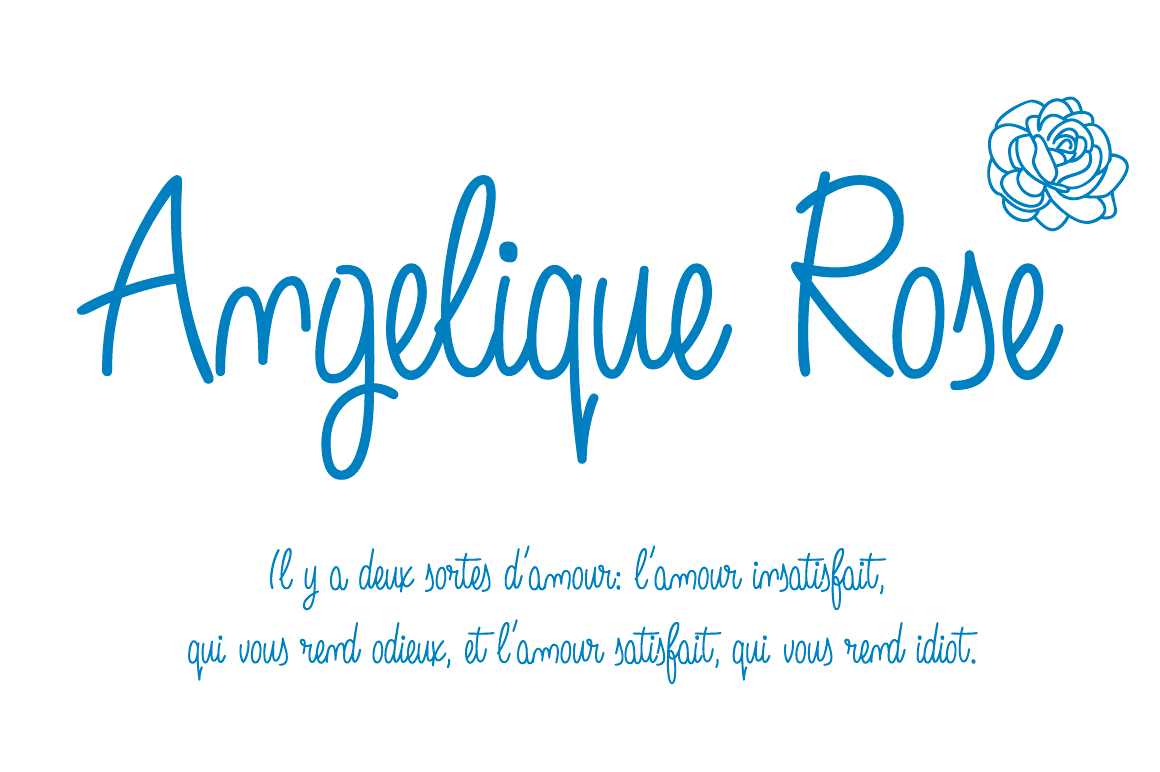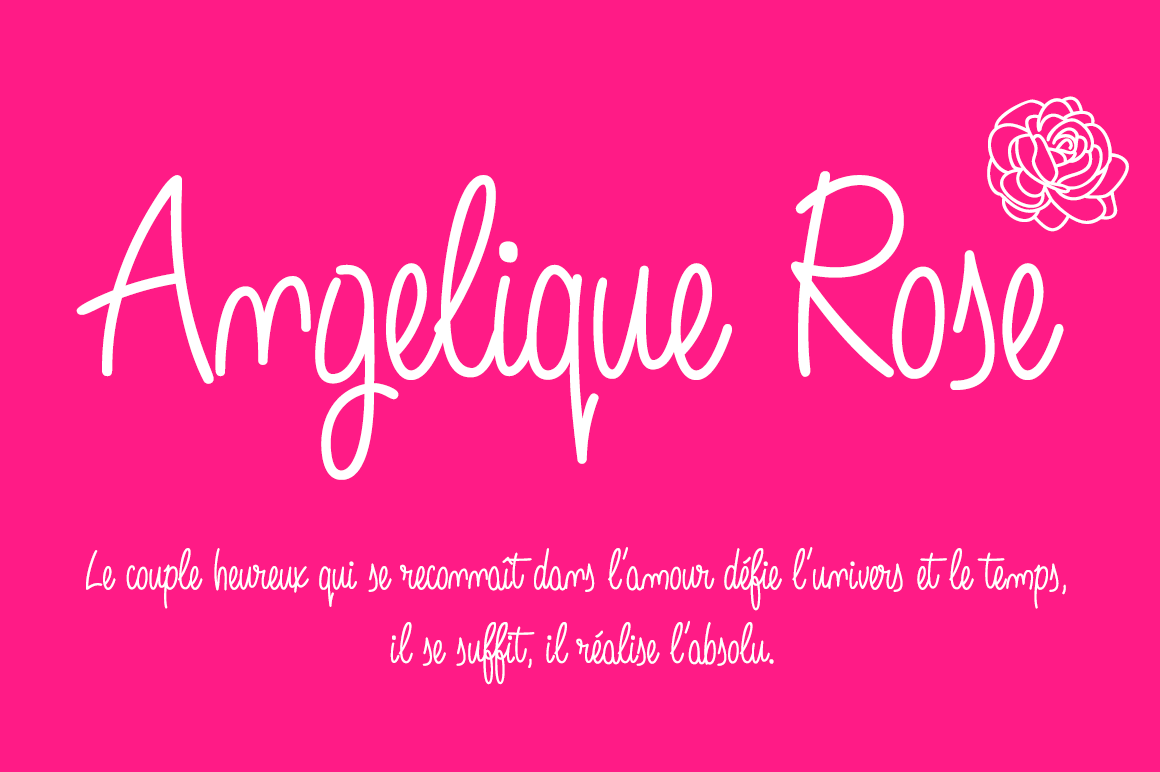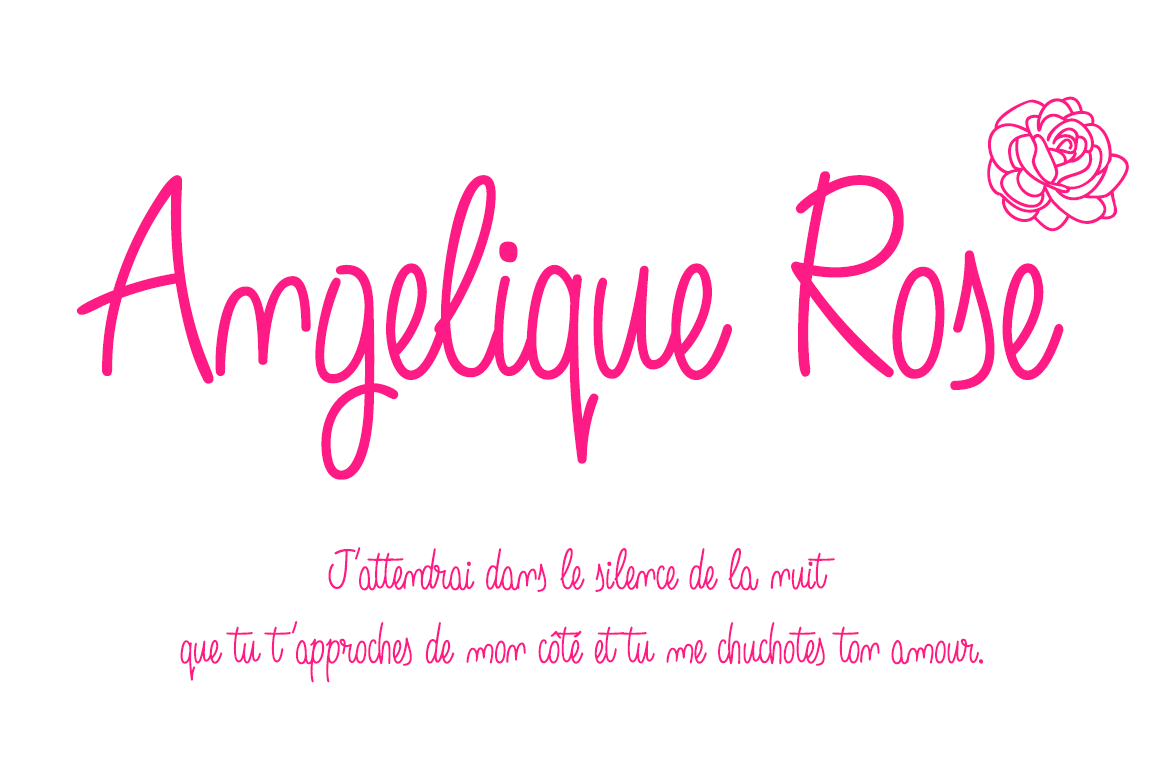
The Quest for the Perfect Handwritten Font: Discovering Angelique Rose
I still remember the design project that led me to discover the beautiful Angelique Rose font. I was working on a branding project for a crafty client who specialized in handmade jewelry. I wanted a font that would capture the essence of her handmade products and convey a sense of warmth and personality. After scouring through countless font libraries, I stumbled upon Angelique Rose, a handwritten font drawn with pen and paper. It was love at first sight! 💕
A Personal Review of Angelique Rose
As a designer, I’m always on the lookout for fonts that can add a personal touch to my projects. Here’s what I love about Angelique Rose:
- ✨ Unique and elegant handwritten style that’s perfect for branding, packaging, and marketing materials.
- ✅ Highly legible, even at small font sizes.
- 💫 Supports OpenType features, including glyphs and stylistic alternates, which add an extra layer of creativity to your designs.
While Angelique Rose is an amazing font, it’s not without its quirks. Here are a few things to keep in mind:
- 🤔 The font can be a bit heavy on the x-height, which may not be ideal for certain design applications.
- ⚠️ Some users may find the font a bit too ornate for very small font sizes or body text.
The Story Behind Angelique Rose
Angelique Rose was designed by a talented type designer who wanted to create a font that captured the essence of handwritten elegance. Inspired by classic calligraphy and modern handwriting, the designer poured their heart and soul into creating a font that’s both beautiful and functional.
| Font Name | Angelique Rose Font |
| Author | Fernando Haro |
| What is Angelique Rose? | Angelique Rose is a handwritten font drawn with pen and paper, perfect for branding, packaging, and marketing materials. |
| Is Angelique Rose suitable for body text? | While Angelique Rose is highly legible, it may not be the best choice for body text due to its ornate nature. However, it’s perfect for headings, titles, and short paragraphs. |
| Does Angelique Rose support OpenType features? | Yes, Angelique Rose supports OpenType features, including glyphs and stylistic alternates, which add an extra layer of creativity to your designs. |